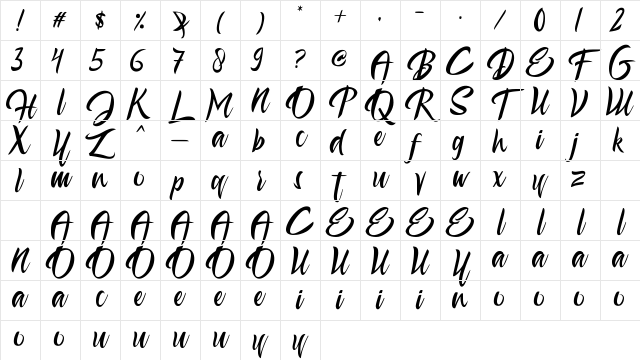
Aesthetic Gelatinate Regular Free Font
Aesthetic Gelatinate Regular
Designer: Agni Ardi Rein Prasetyo
Design Context for Aesthetic Gelatinate
Aesthetic Gelatinate is a composed and adaptable typeface that performs quietly and consistently across a wide range of design contexts.